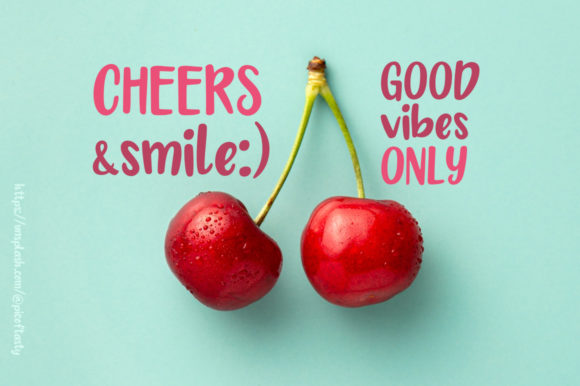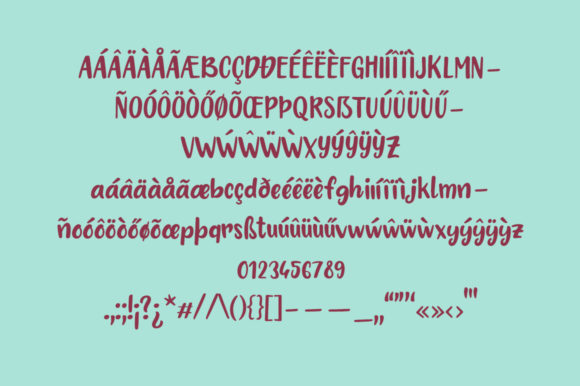
Cherry Bubble Font
About Cherry Bubble Font
Cherry Bubble is a friendly, adorable and cute handwritten font that feels fresh and unique. Get inspired by its authentic charm!